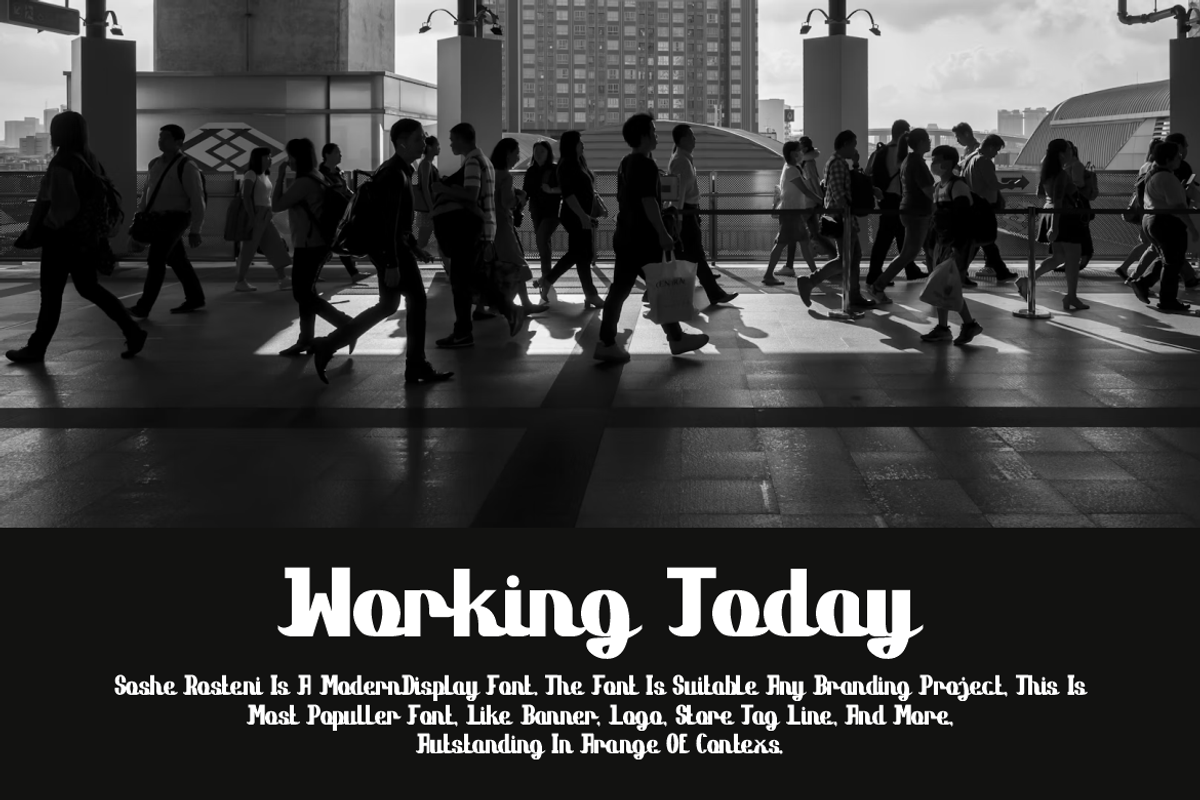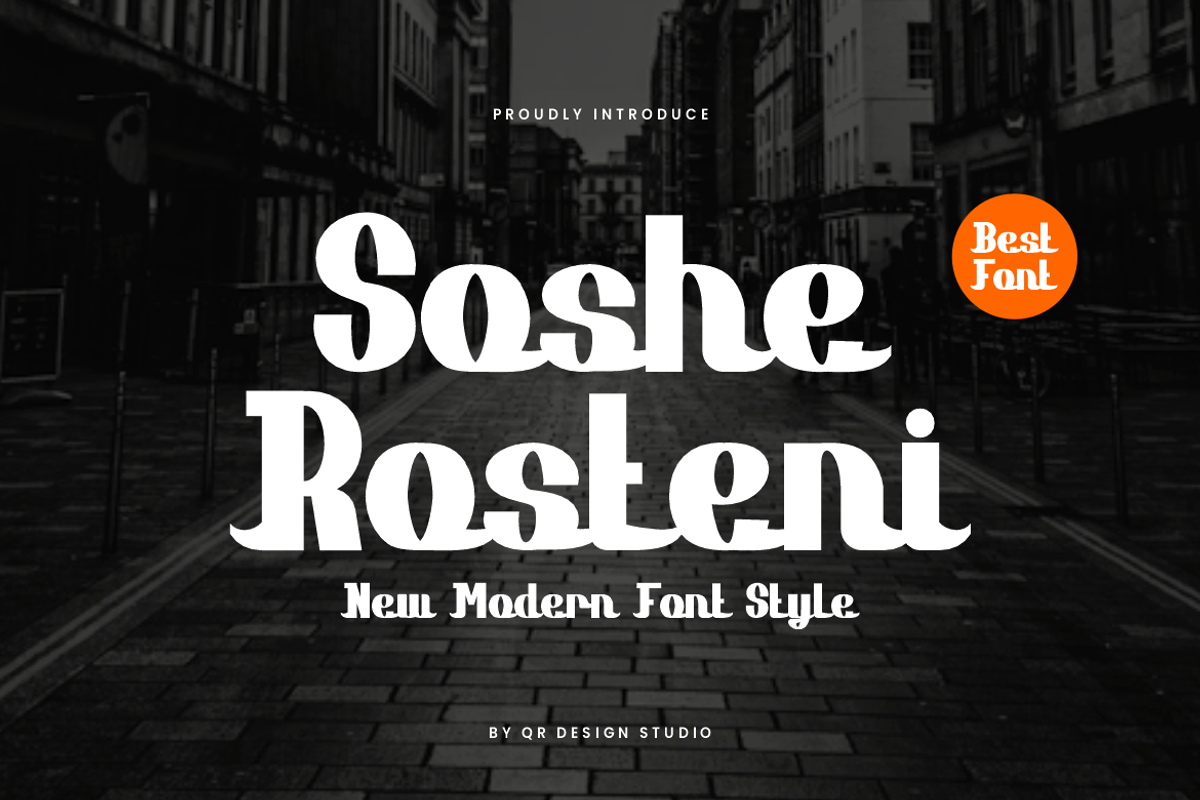
Soshe Rosteni - Modern Font
Soshe Rosteni Font is a bold and authentic display font. The font is suitable for any branding project like poster, logo, sport, and many more. Outstanding in a wide range of contexts.